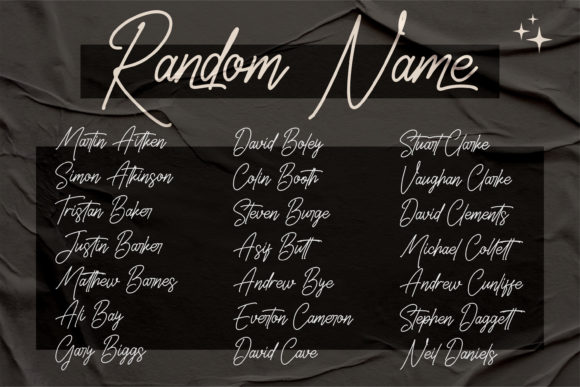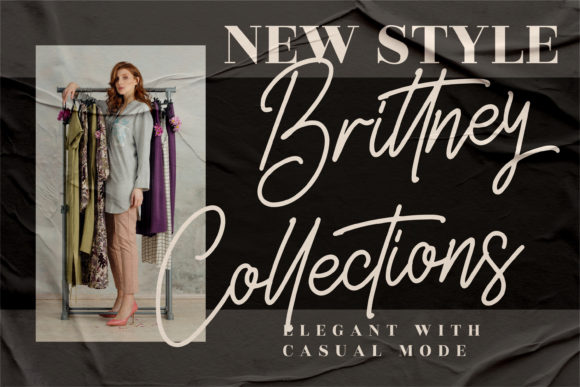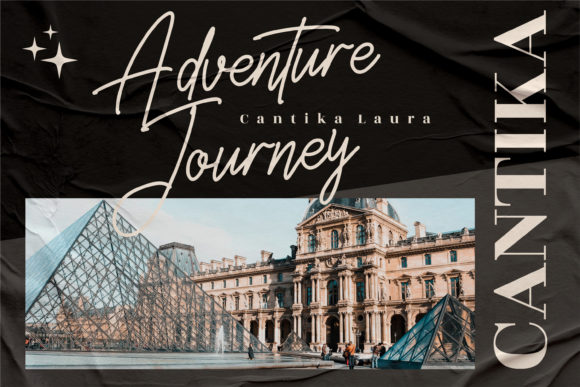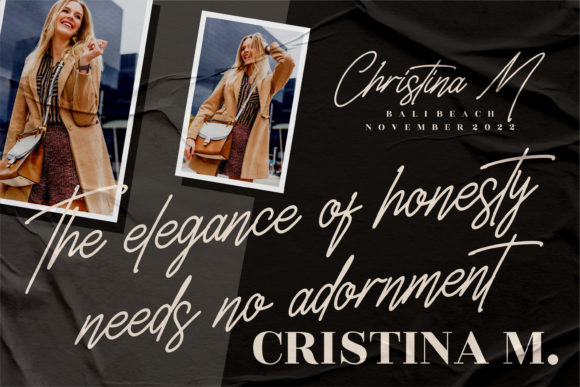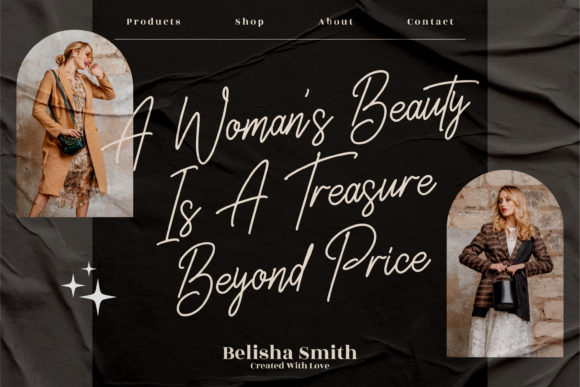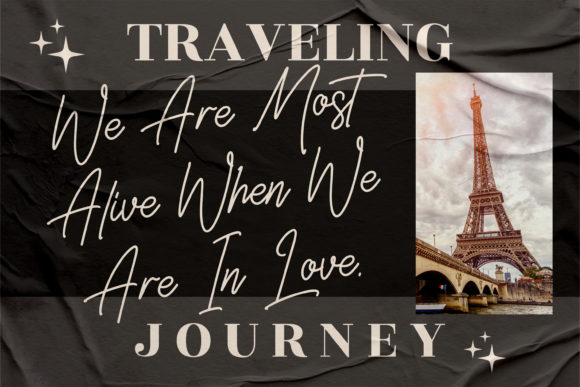
Belistaria Signature Font: Elevate Your Designs with Elegance and Sophistication
In the world of typography, a well-crafted font can make all the difference in transforming a design from ordinary to extraordinary. For designers and crafters seeking to infuse their projects with a touch of sophistication and elegance, the Belistaria Signature Font is an exceptional choice. This chic, refined script font is designed to emanate luxury and poise, making it the perfect match for a wide range of creative endeavors.
The Essence of Belistaria Signature Font
Belistaria Signature Font is a masterfully designed script font that exudes refinement and class. Its fluid strokes and harmonious letterforms are meticulously crafted to convey a sense of high-end style, making it an ideal selection for projects that demand a sophisticated aesthetic. Whether you’re working on a branding campaign, packaging design, wedding invitations, or any other creative project, Belistaria Signature Font is sure to leave a lasting impression.
Key Features of Belistaria Signature Font
• Stylish Alternates and Ligatures: One of the standout features of Belistaria Signature Font is its comprehensive set of stylish alternates and ligatures. These typographic elements allow designers to add a unique touch to their work, creating a more personalized and distinctive look.
• Elegant Script Style: The font’s elegant script style is perfect for adding a touch of sophistication to any design. Its refined appearance makes it suitable for high-end branding, luxury packaging, and exclusive events.
• Versatility: Belistaria Signature Font is incredibly versatile, making it suitable for a wide range of applications, from digital designs to print materials.
• User-Friendly: The font is easy to use, even for those who are new to typography. Its clear and legible letterforms ensure that your message is conveyed with clarity and style.
Applications of Belistaria Signature Font
The versatility of Belistaria Signature Font makes it an excellent choice for various design projects. Here are some of the ways you can utilize this elegant font:
• Branding and Logo Design: Create a lasting impression with a sophisticated logo that reflects your brand’s values and personality.
• Wedding and Event Invitations: Add a touch of elegance to your wedding or event invitations, making them truly unforgettable.
• Packaging Design: Elevate your product packaging with a luxurious look that stands out on store shelves.
• Digital Designs: Use Belistaria Signature Font in your digital designs, such as social media graphics, website headers, and email newsletters.
Tips for Using Belistaria Signature Font
To get the most out of Belistaria Signature Font, consider the following tips:
• Pair with Complementary Fonts: Combine Belistaria Signature Font with complementary fonts to create a harmonious and visually appealing design.
• Experiment with Ligatures and Alternates: Take advantage of the font’s ligatures and alternates to add a unique touch to your design.
• Adjust Font Size and Color: Experiment with different font sizes and colors to create a design that is both elegant and eye-catching.
Belistaria Signature Font is a chic, refined script font that is sure to elevate your designs with its elegance and sophistication. With its stylish alternates and ligatures, elegant script style, and versatility, this font is perfect for designers and crafters seeking to create high-end designs. Whether you’re working on a branding campaign, packaging design, or wedding invitations, Belistaria Signature Font is an exceptional choice that will leave a lasting impression.